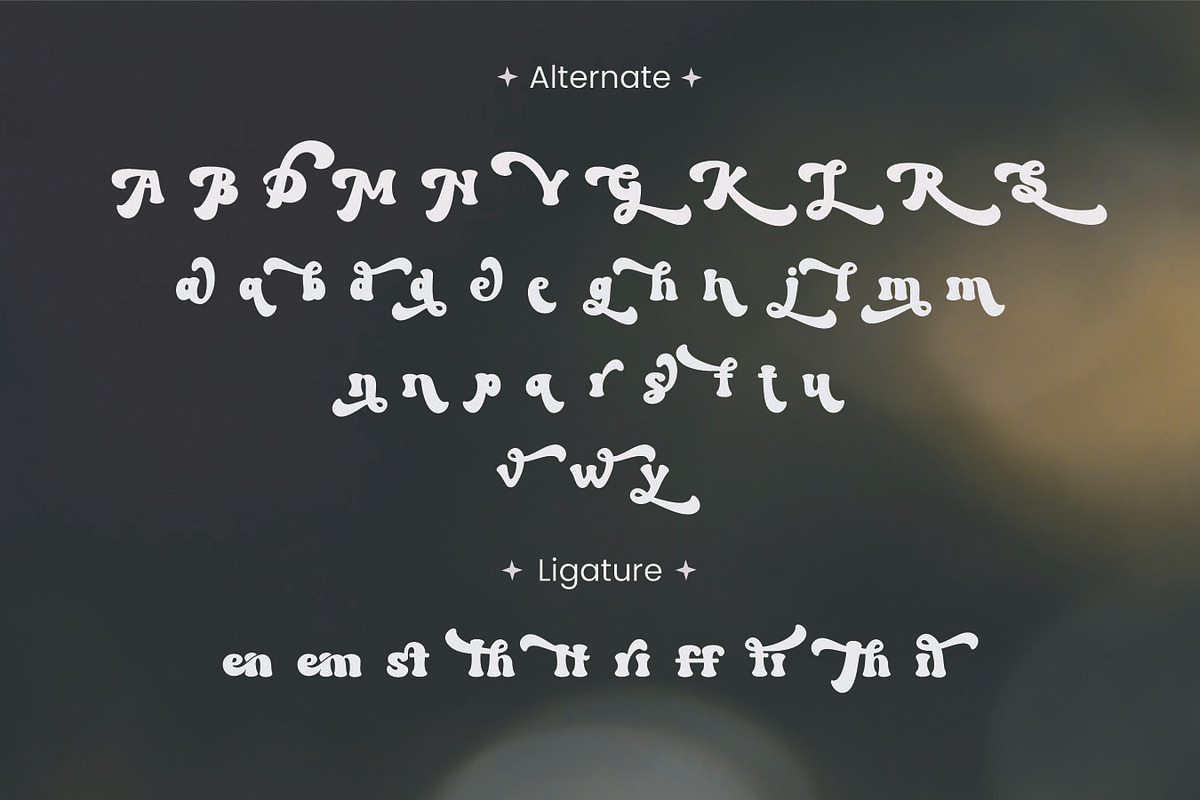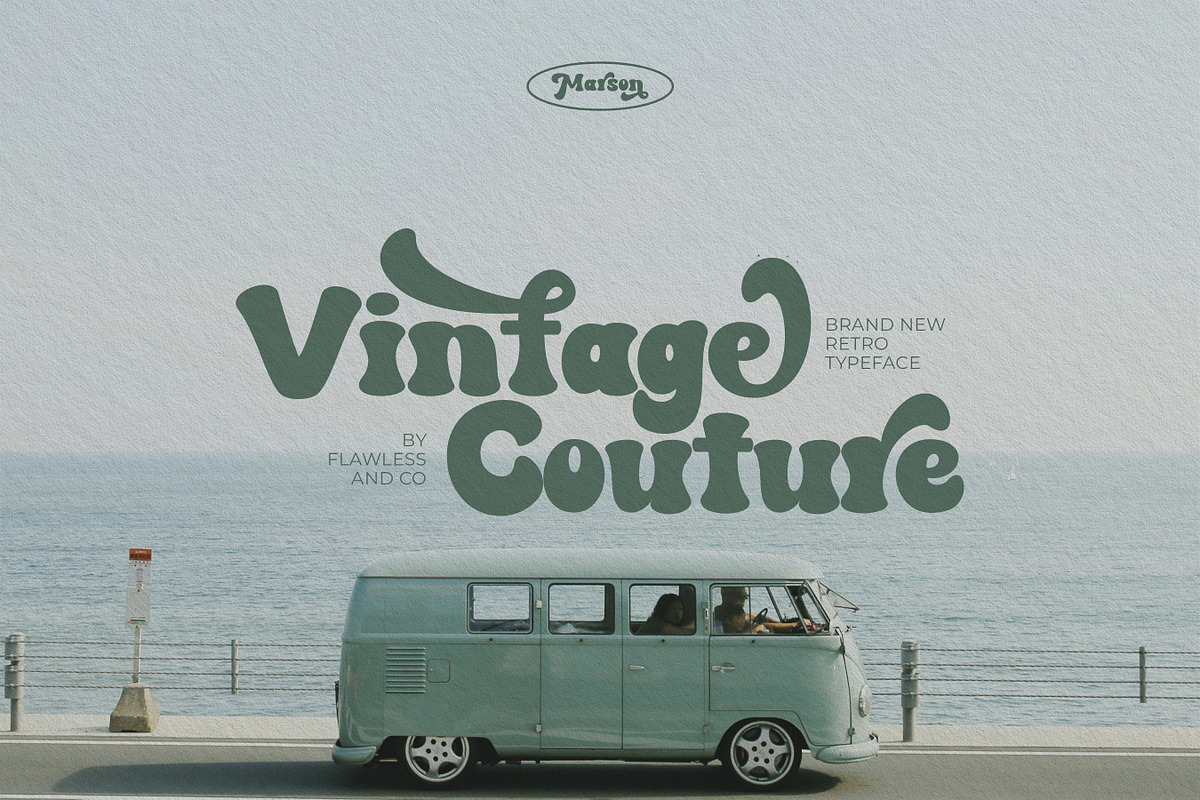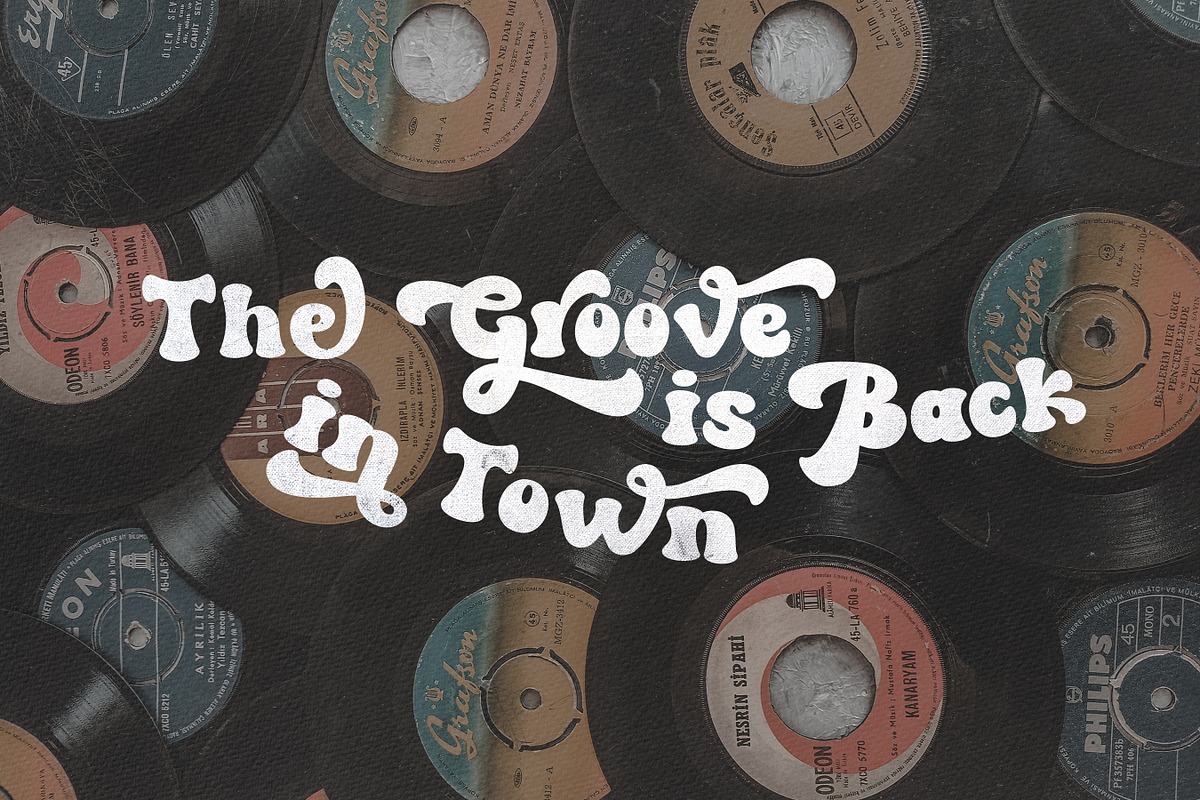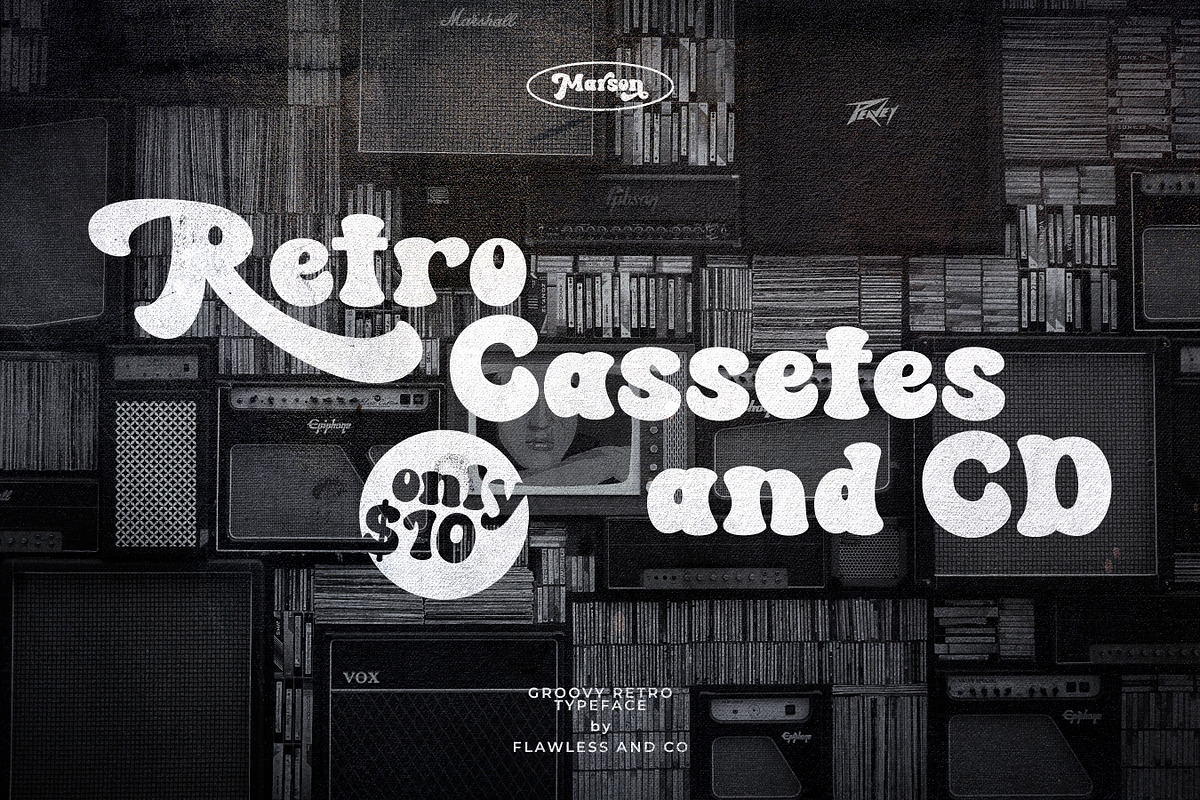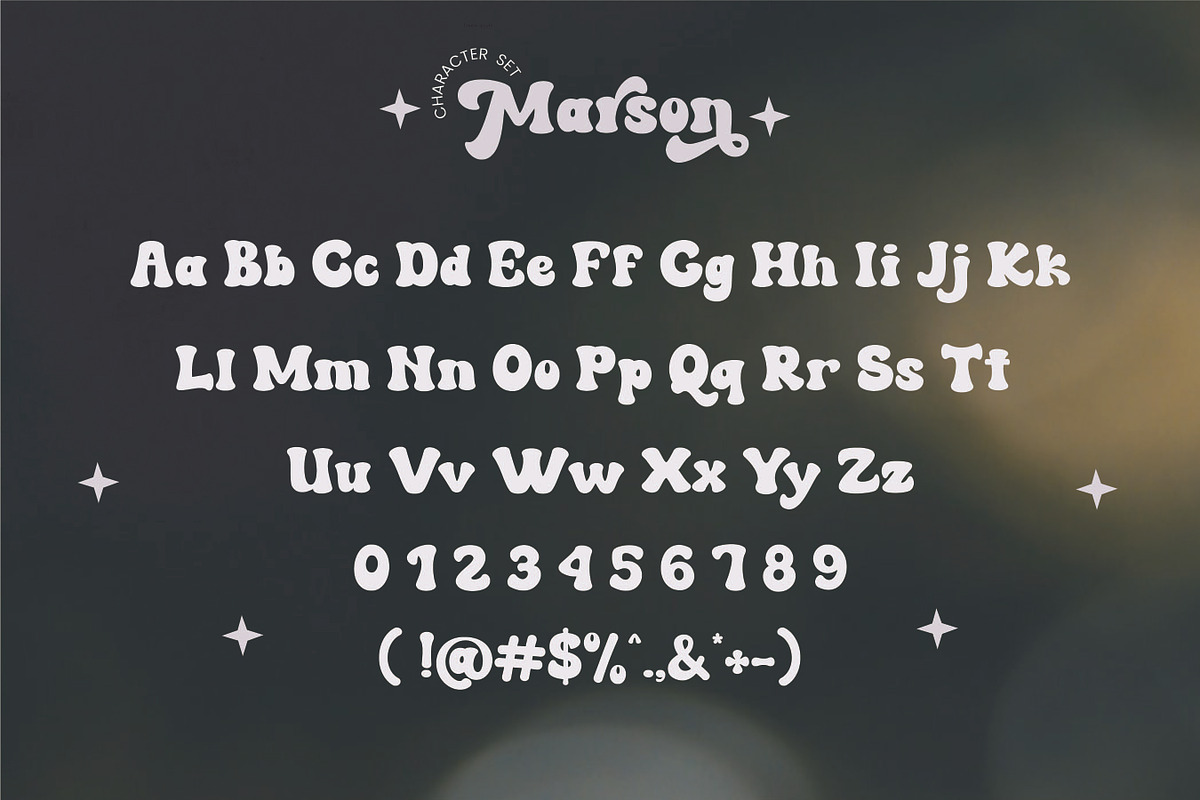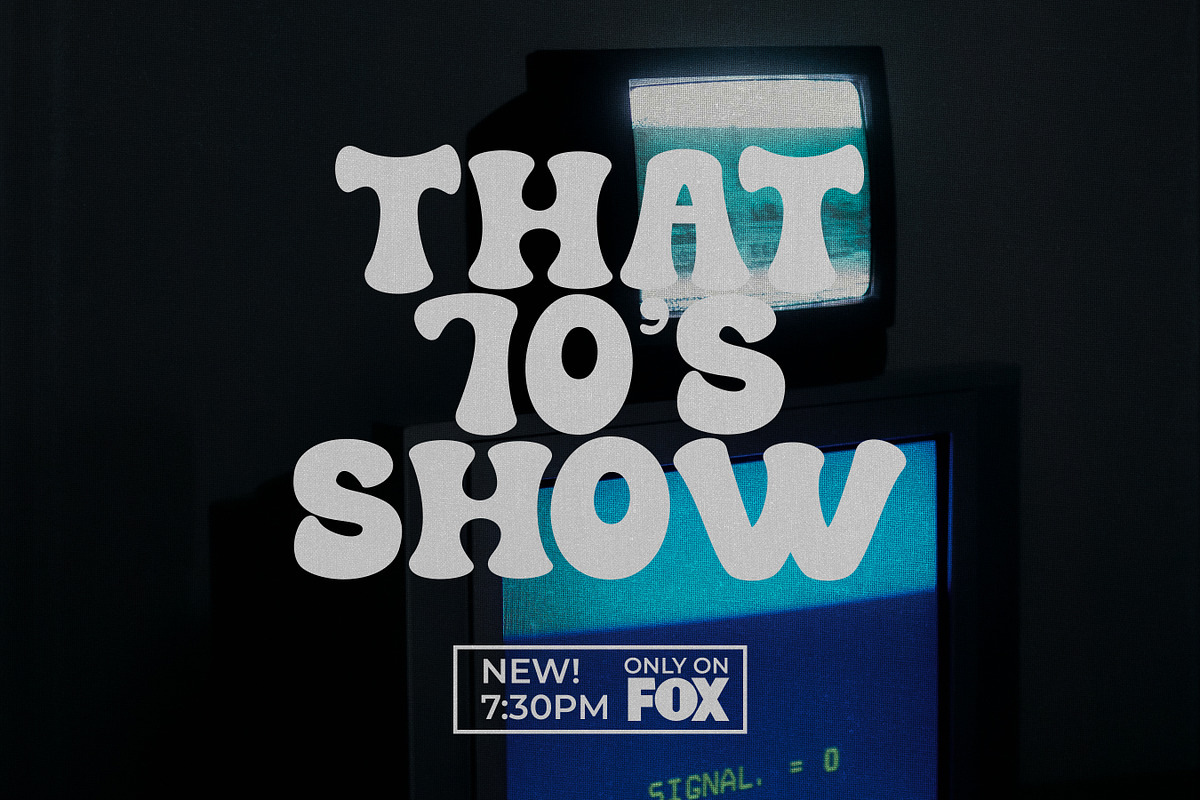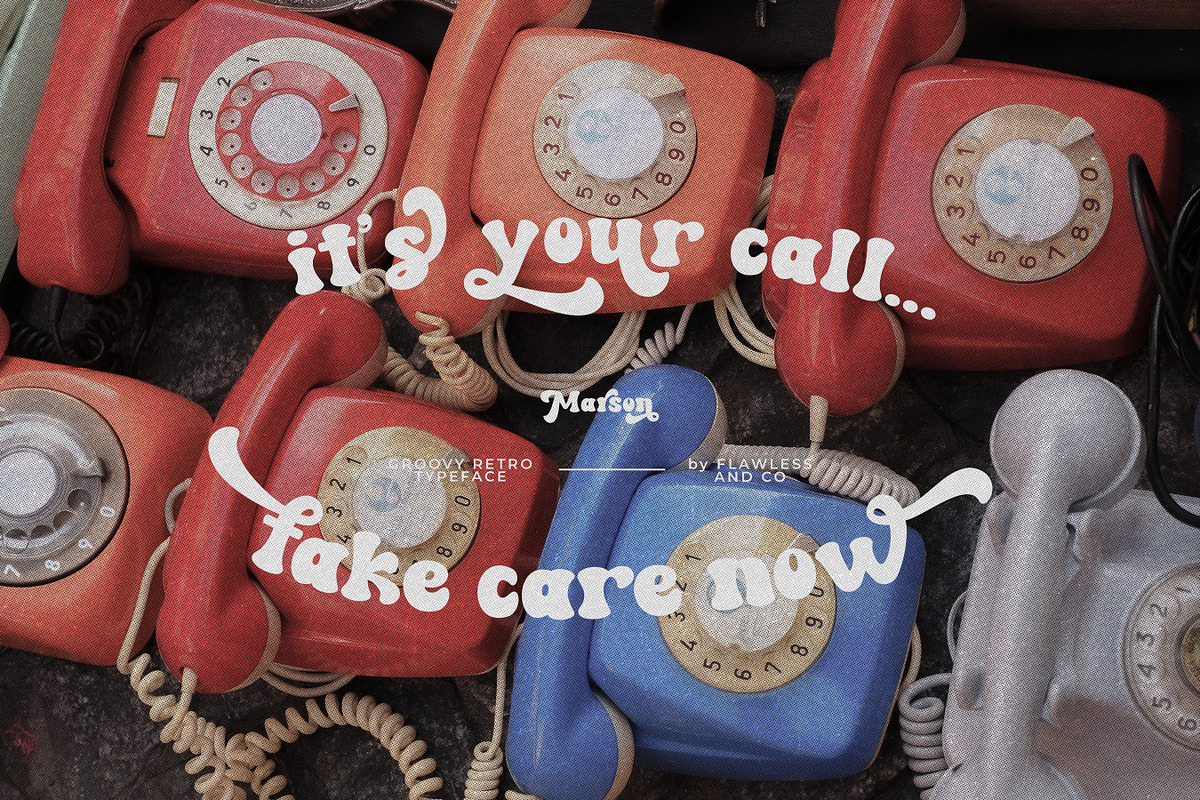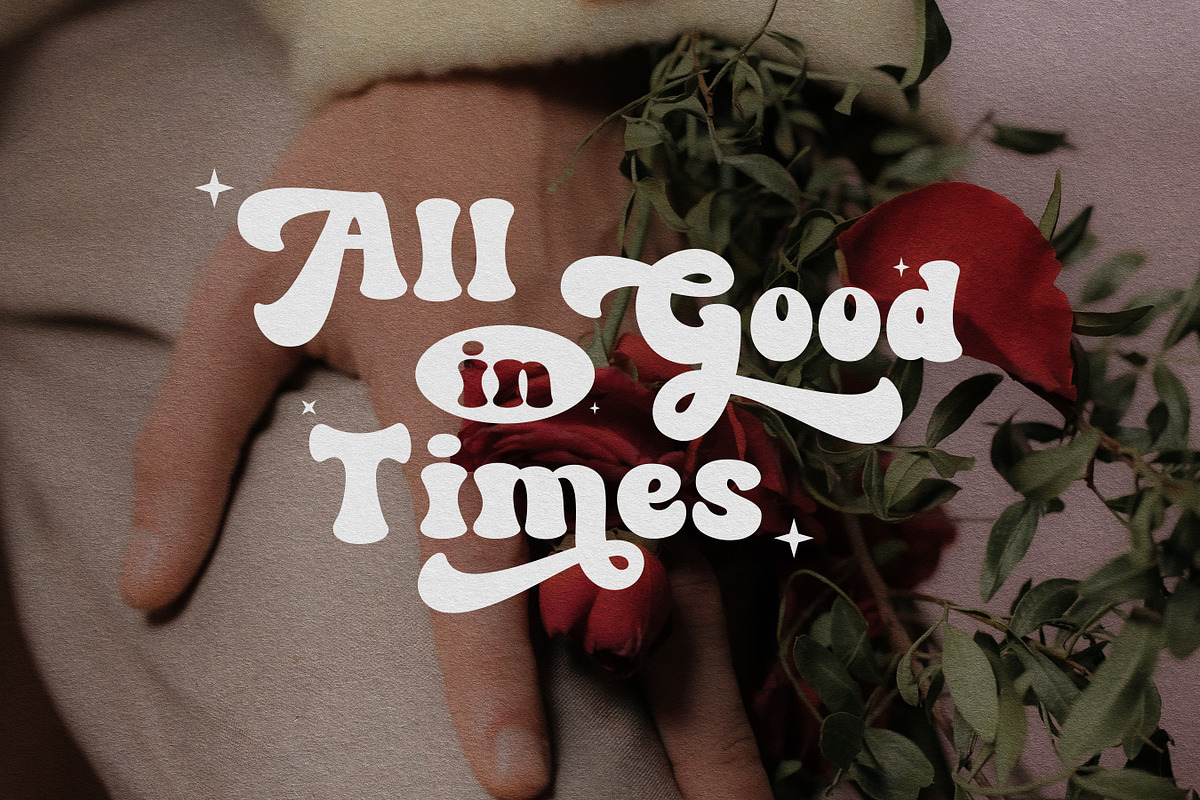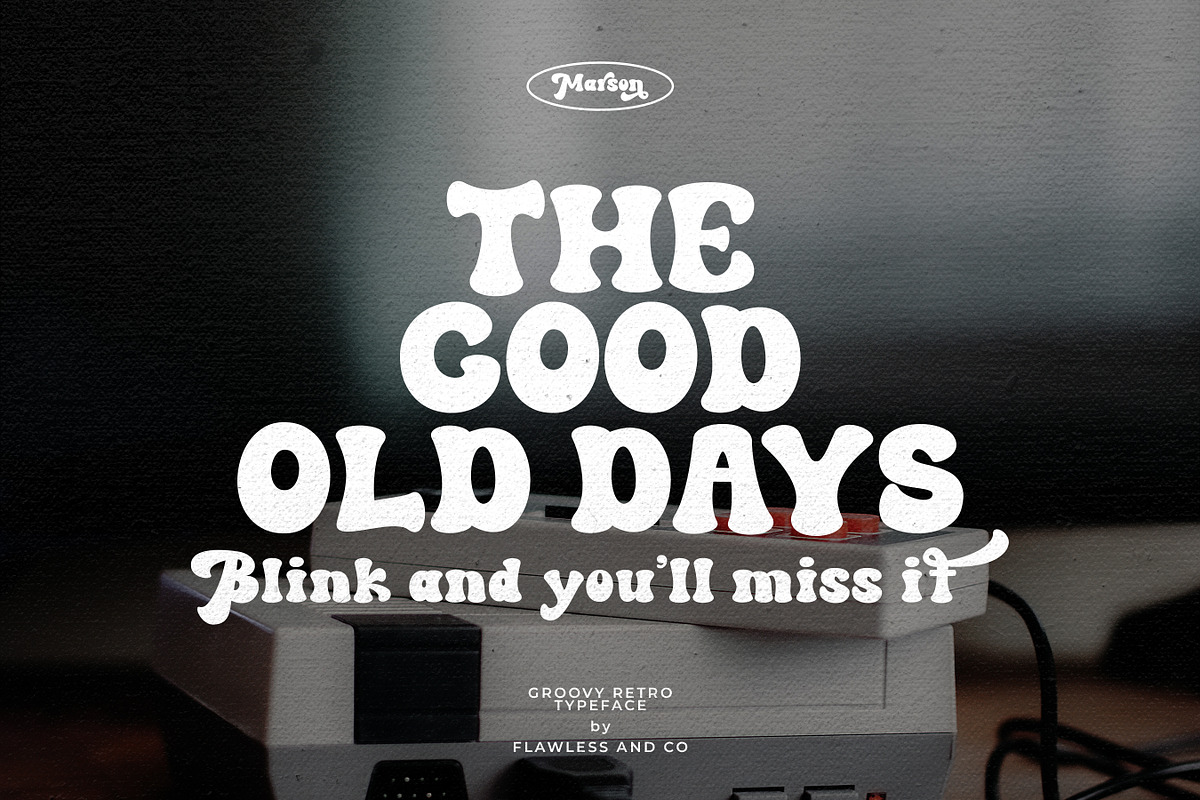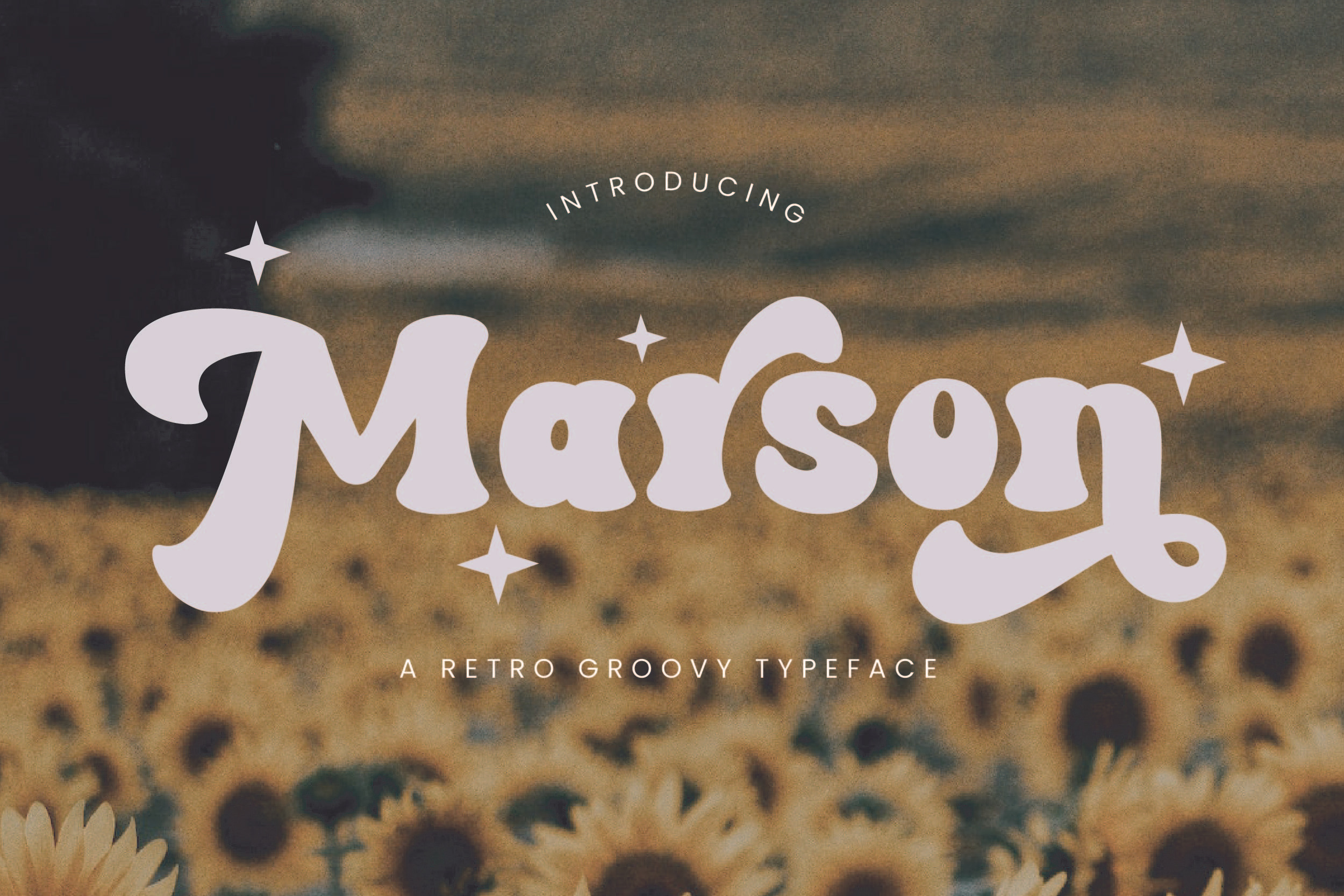
Marson - Groovy Retro Font
Introduction our creation, groovy retro font with various alternates and ligatures, multilingual support, an updated blend of bohemian style, suitable for branding, business, logos, magazines, and others
Multilingual Uppercase alphabet A-Z Lowercase alphabet a-z Italic alphaber 1-z Alternate Character Numbers 0-9 Some punctuation